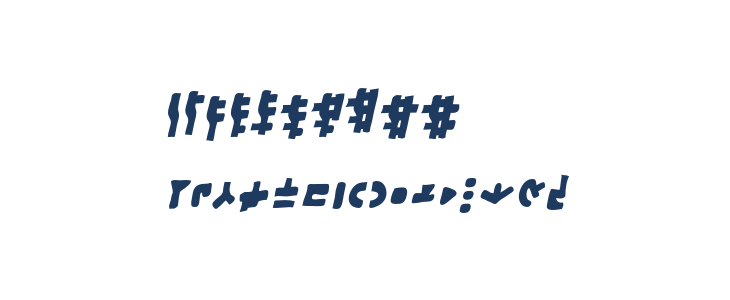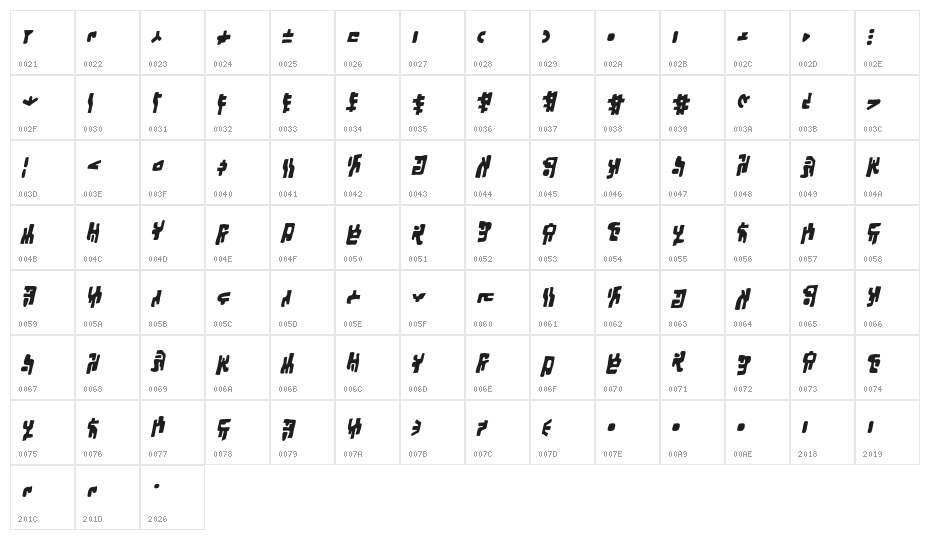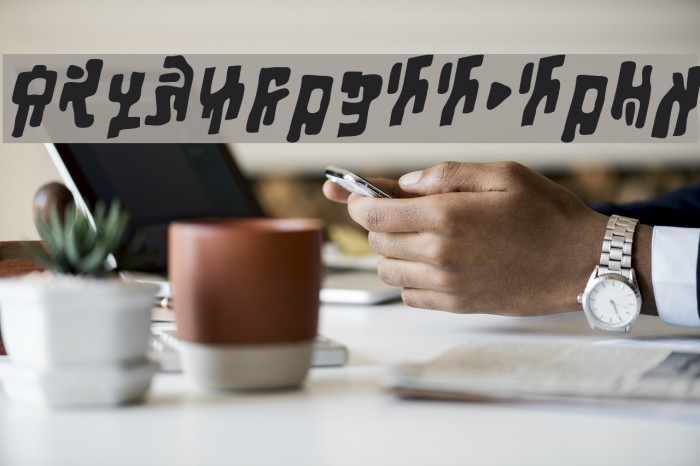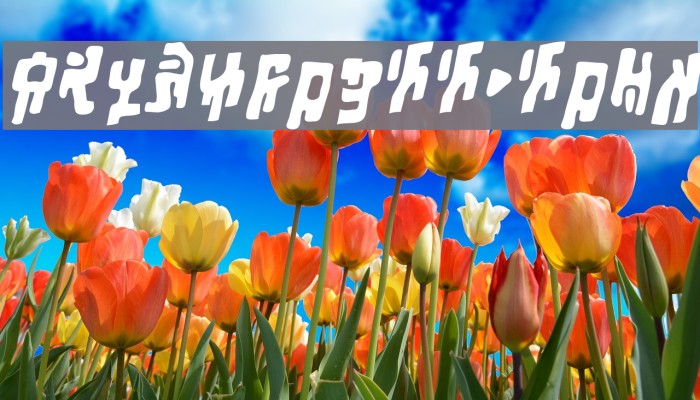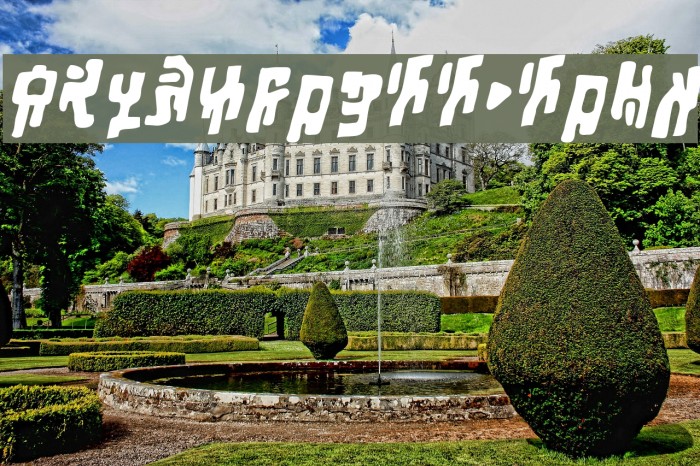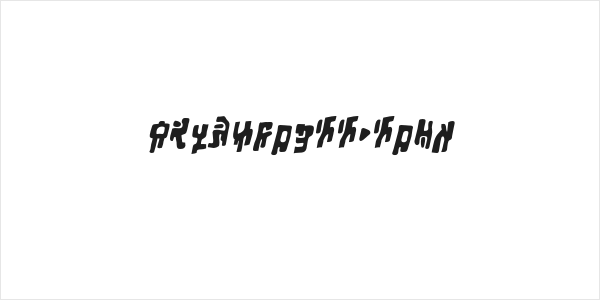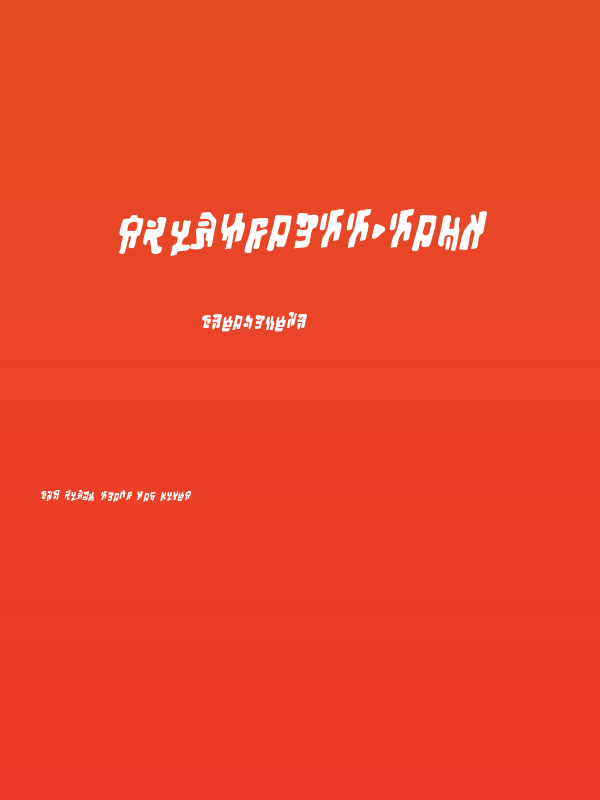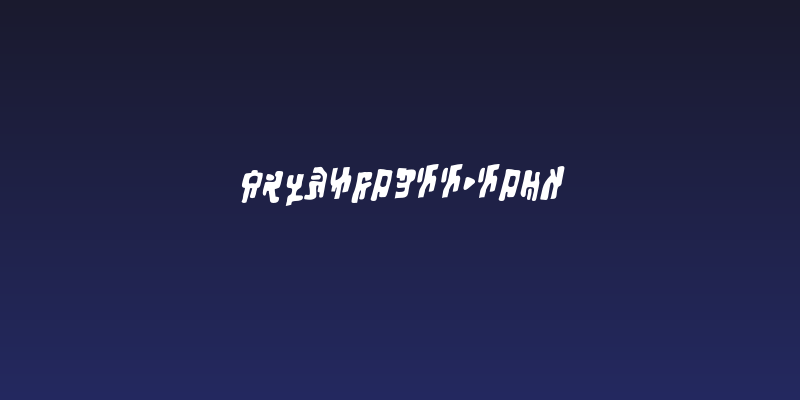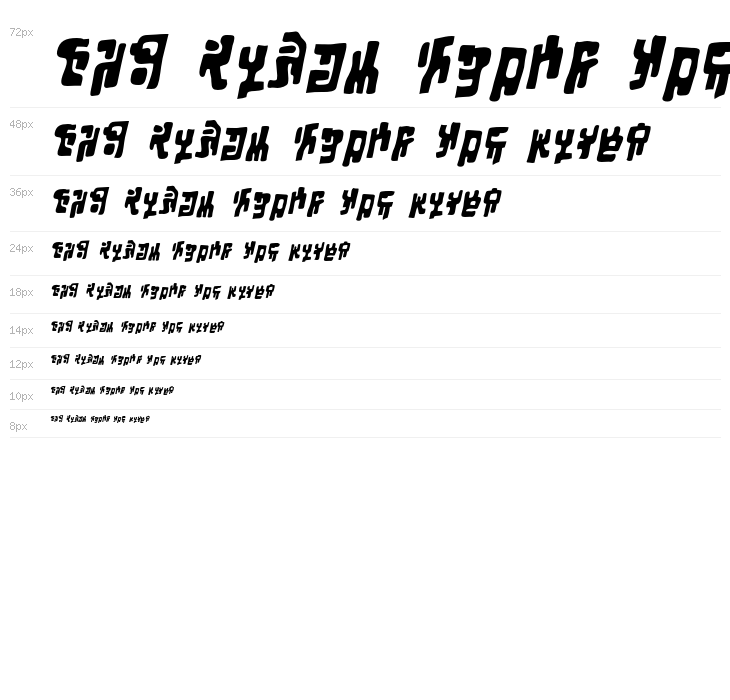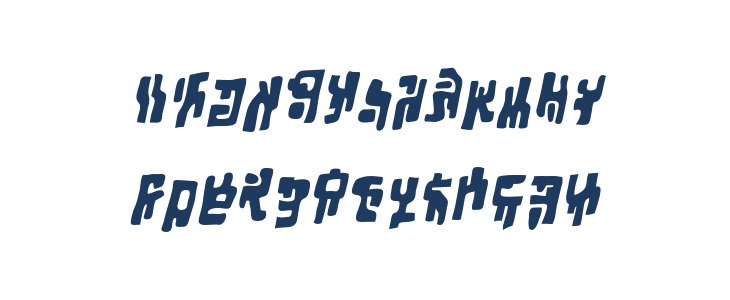
SquiznorBB-Bold Font
SquiznorBB-Bold Description
This font features a bold and dynamic style with thick, rounded strokes that create a strong visual impact. The characters are uniquely designed with a futuristic and abstract appearance, incorporating sharp angles and smooth curves. The overall look is both playful and assertive, making it ideal for attention-grabbing headlines or creative projects. The uppercase and lowercase letters maintain a consistent style, while the numerals and special characters complement the overall aesthetic. This font's distinctive design makes it suitable for modern and edgy applications.
| Proposed Projects | Ideal for use in branding, posters, video game graphics, and any project requiring a modern, edgy look. |